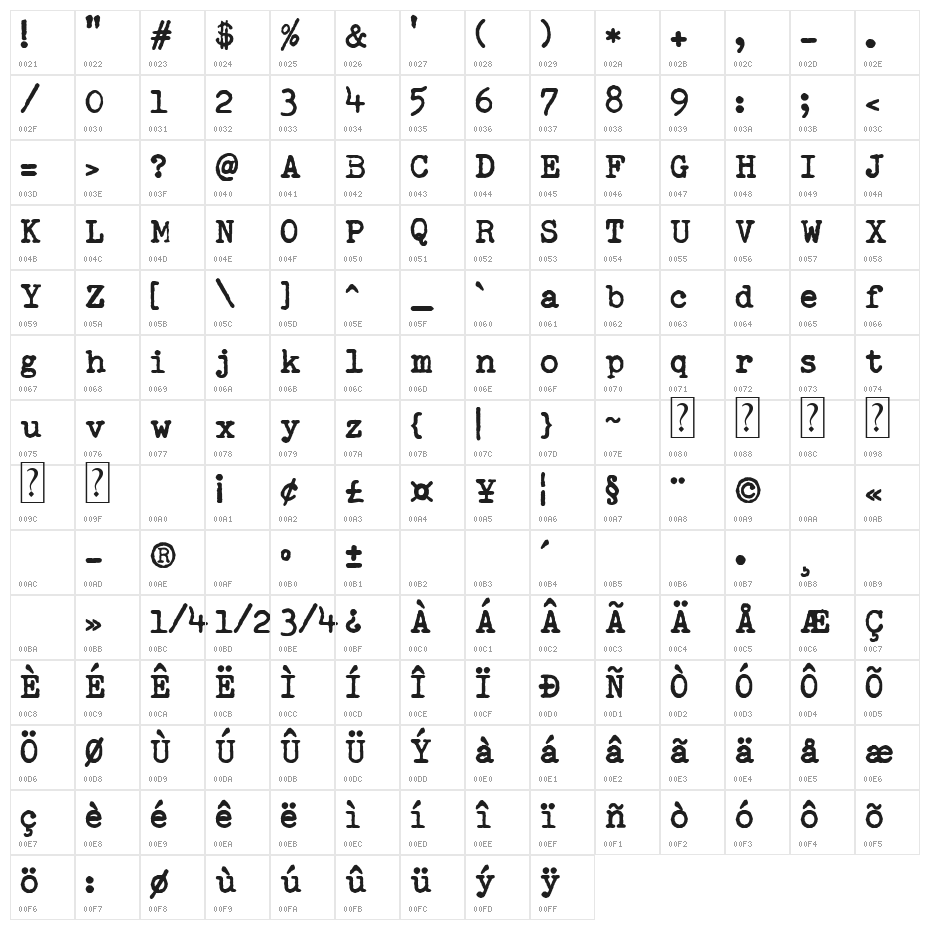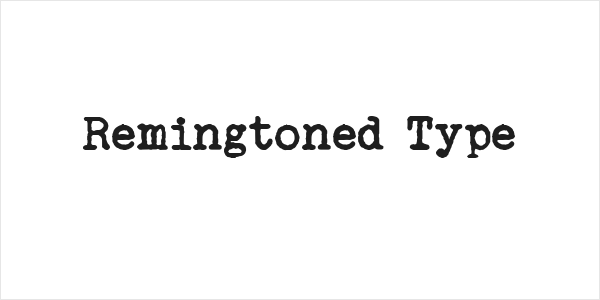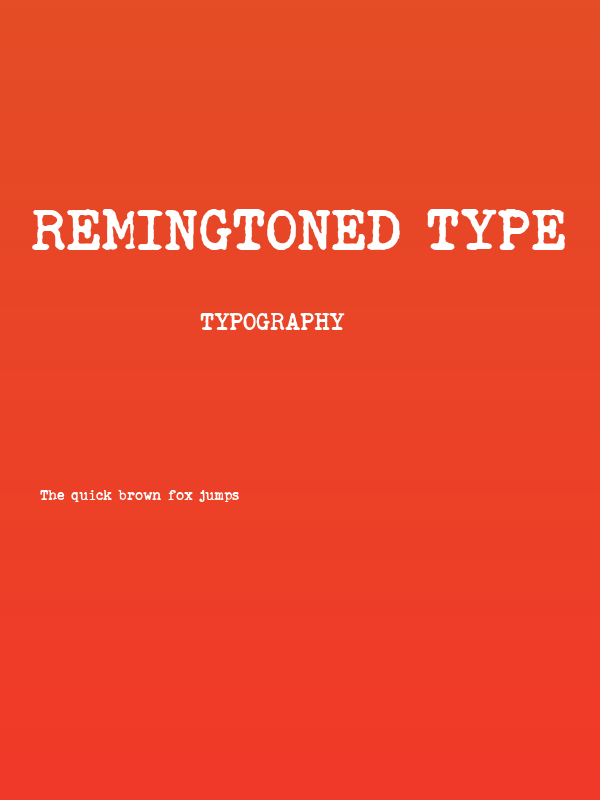
Remingtoned Type Font
Remingtoned Type Description
This font features a vintage typewriter style with a distinct, mechanical appearance. The characters are bold and slightly irregular, mimicking the look of ink pressed onto paper by an old typewriter. The uppercase and lowercase letters maintain a consistent height, with rounded edges and a slightly distressed texture that adds to its nostalgic charm. Numbers and special characters follow the same aesthetic, providing a cohesive look across all glyphs. The font's design is reminiscent of classic typewriter fonts, making it ideal for projects that require a retro or analog feel.
| Use Case | Headlines, Logos, Decorative text |
| Proposed Projects | Ideal for retro-themed designs, typewriter-inspired art, vintage posters, and projects requiring an analog feel. |